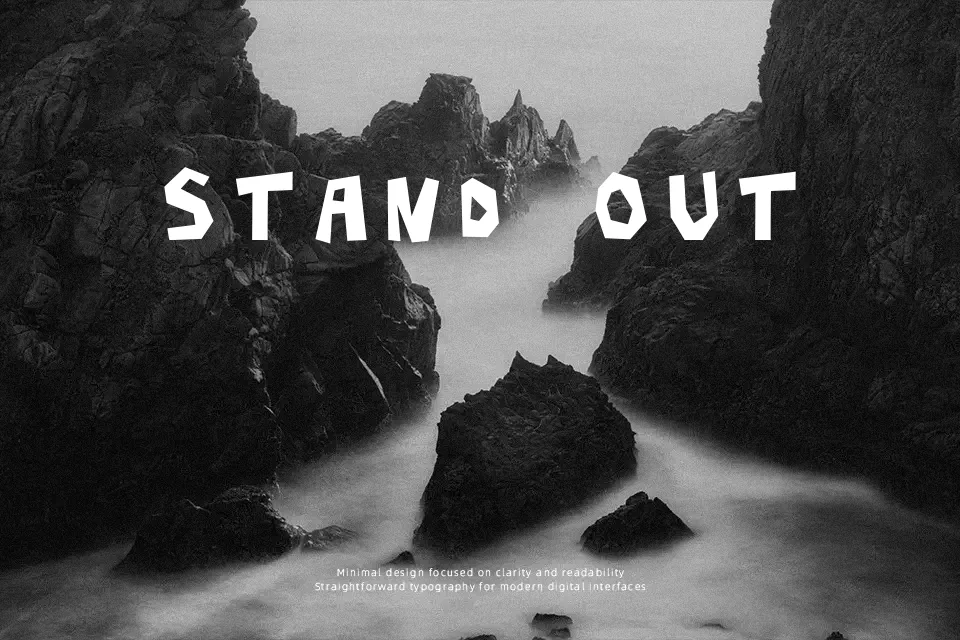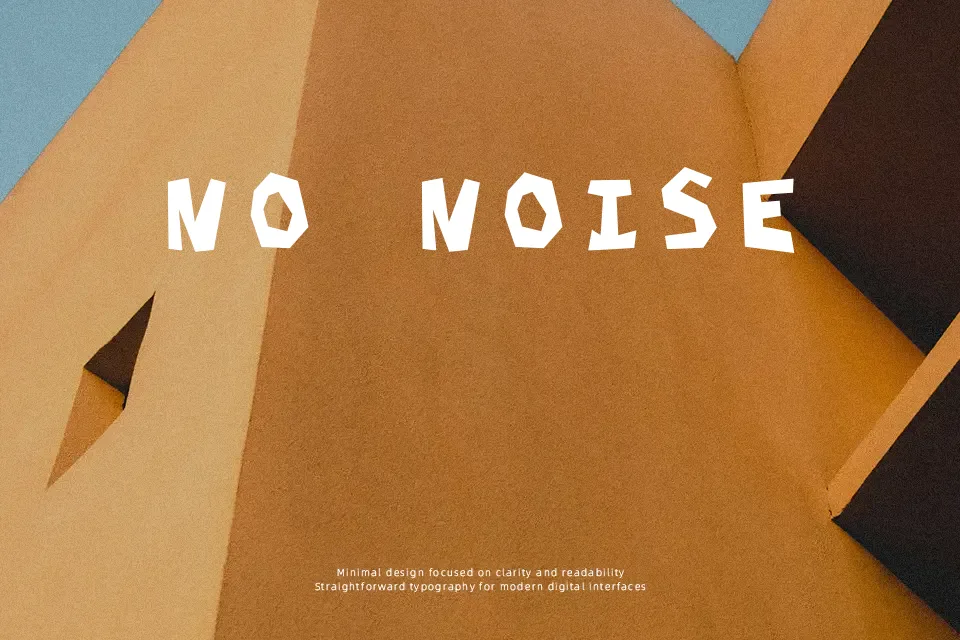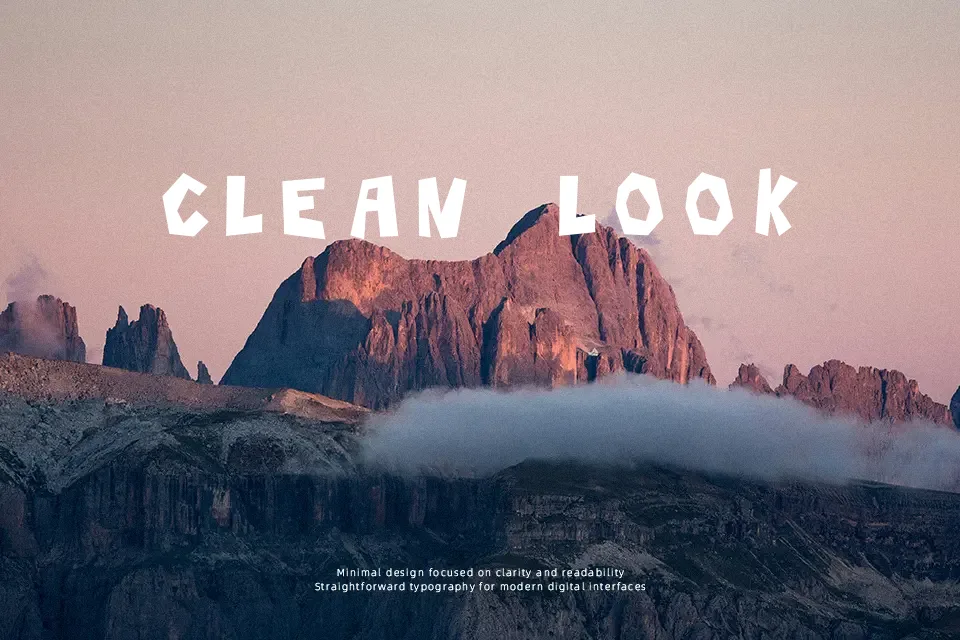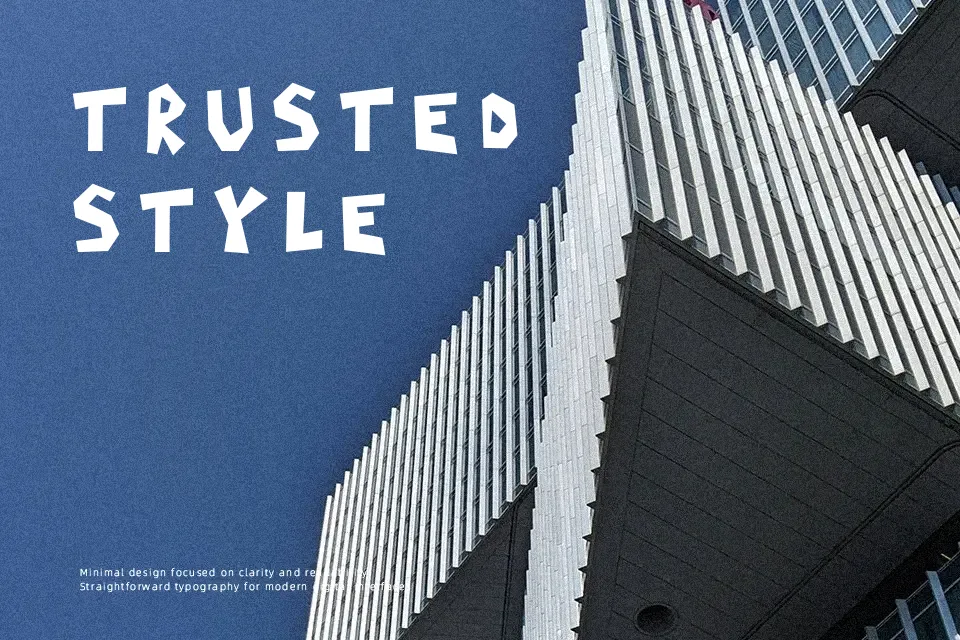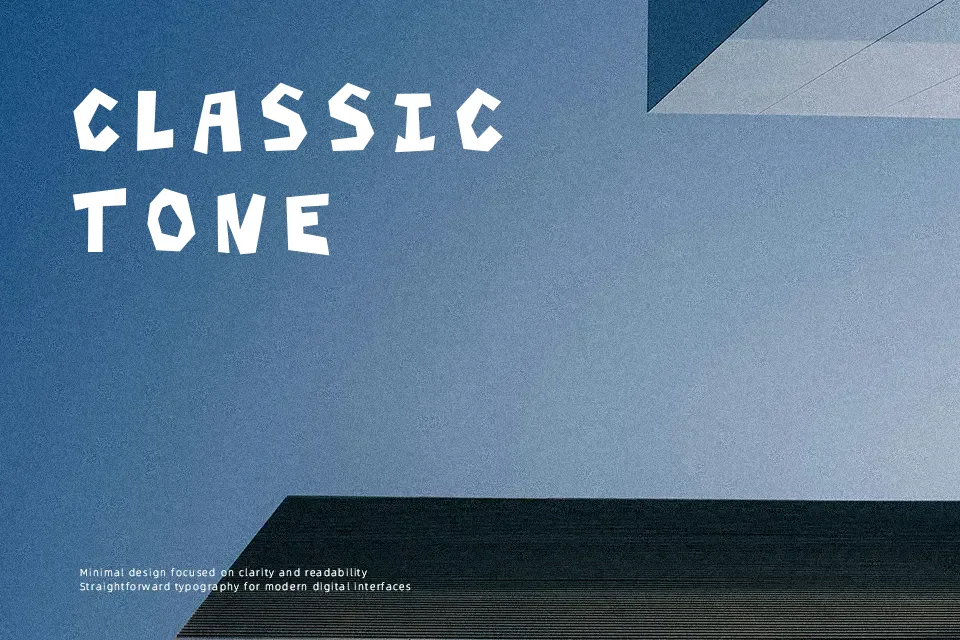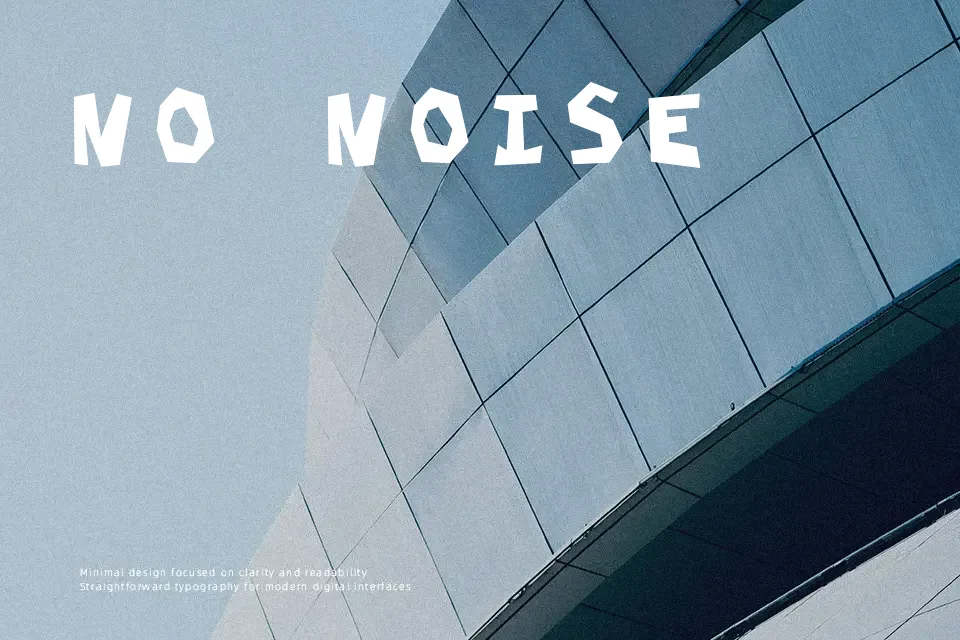
Three Hours Font
Three Hours Font delivers an unapologetically bold, paper-cut aesthetic built on heavy polygonal shapes and jagged contours. Each letterform exhibits low stroke contrast alongside deliberately asymmetrical facets, producing a rugged tactile presence reminiscent of stone chiseling or collage art. Proportions vary organically across characters, while the spacing remains compact to maximize graphical weight. Readability stays crisp when rendered in large display sizes, making the design particularly effective for comic books, playful product packaging, and adventure game banners. However, the heavy silhouettes and eccentric inner counters compromise legibility in dense paragraphs, making the typeface far less suitable for continuous reading.
Best For: comic book covers, video game titles, animated series graphics, playful product packaging
Not Ideal For: extended body paragraphs, technical manuals, mobile app interface text, corporate financial documents